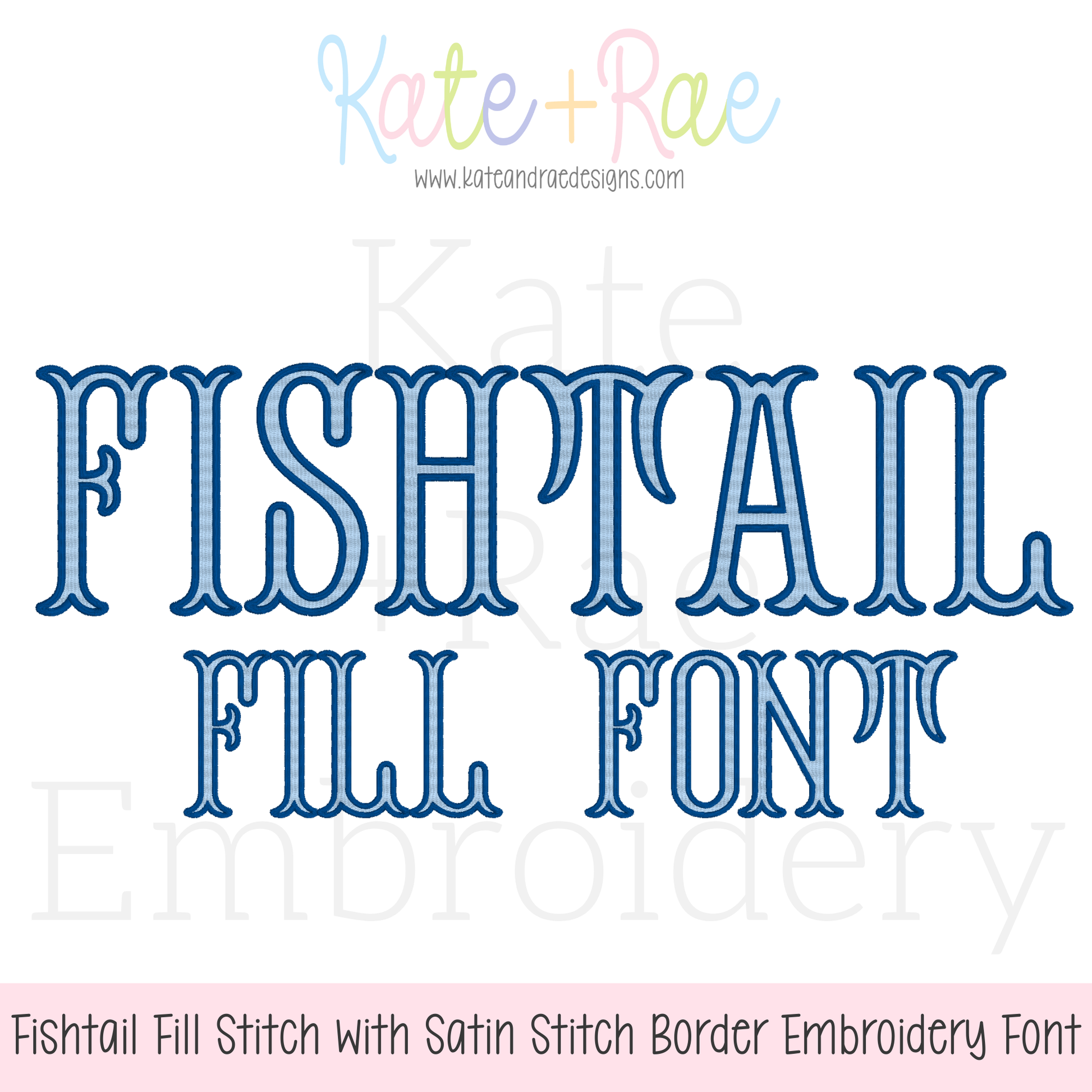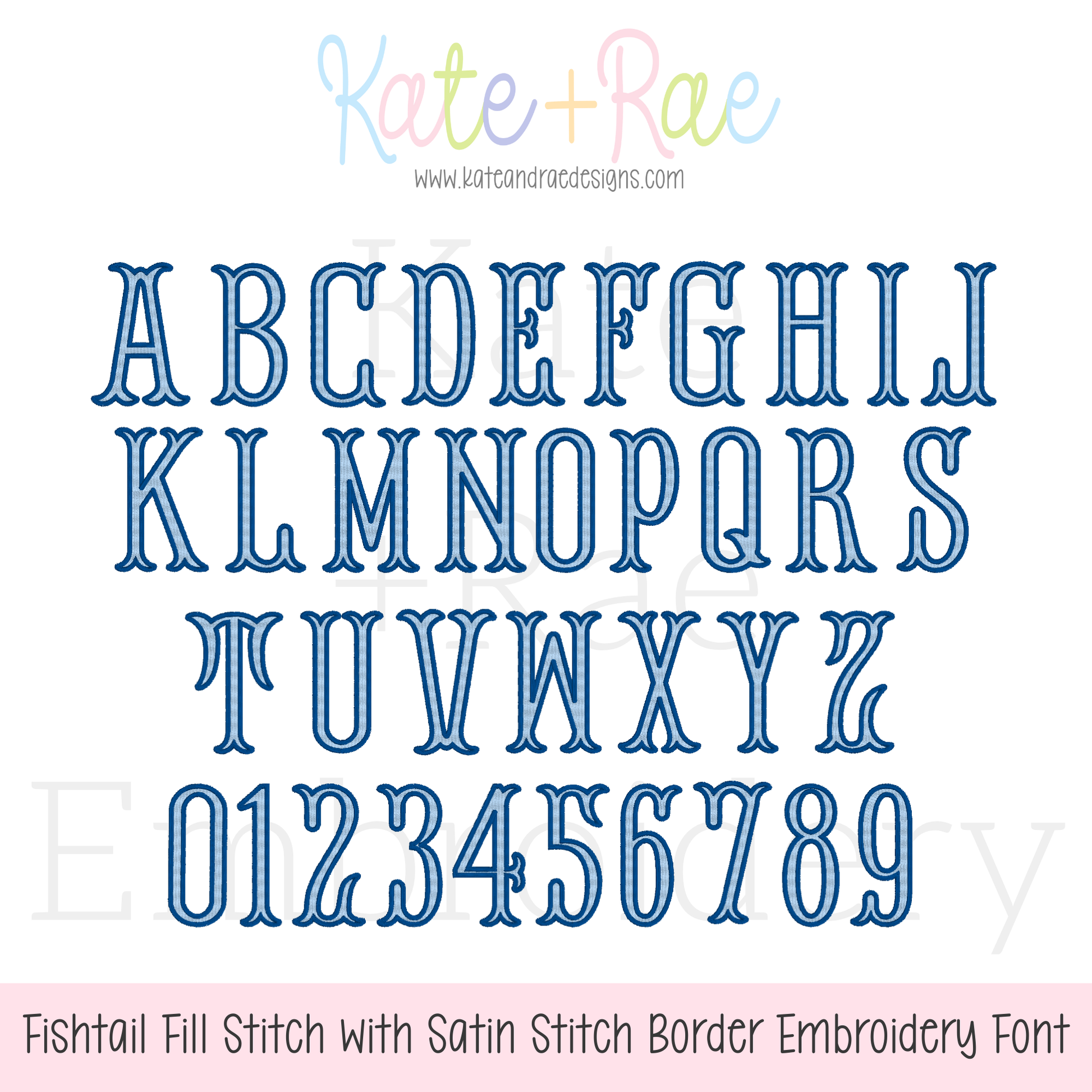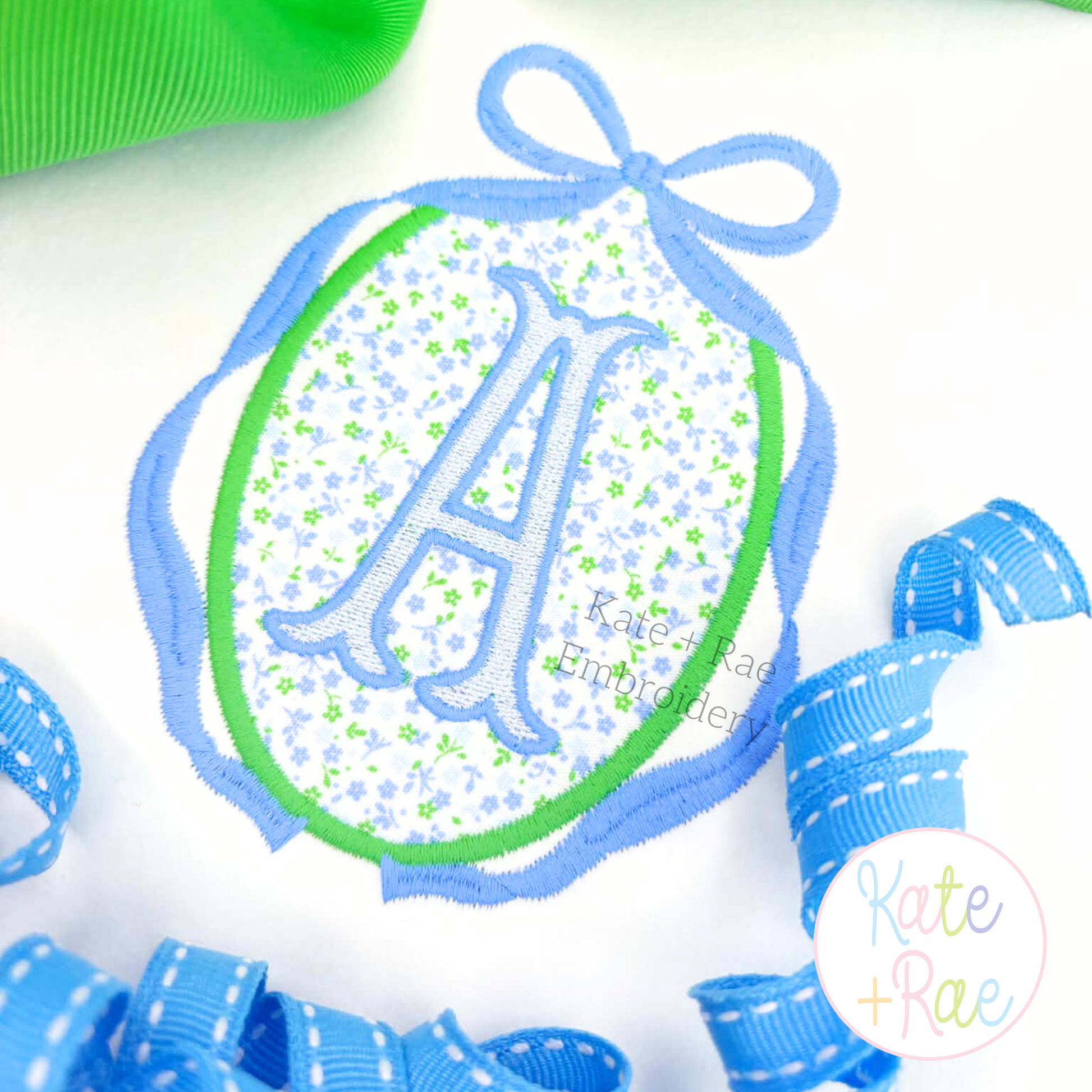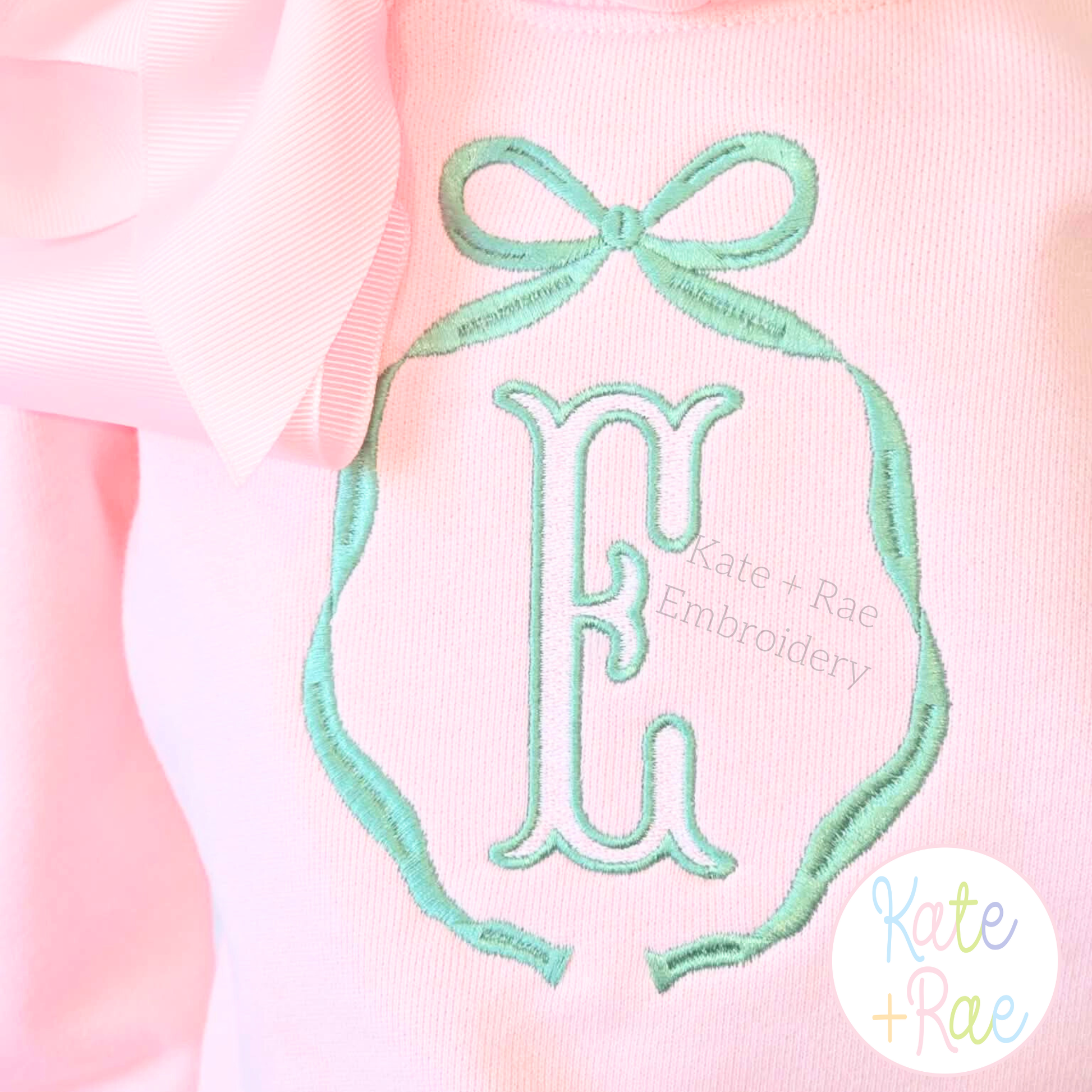
Fishtail Fill Stitch Font with Satin Border Machine Embroidery Font
Make a splash with Fishtail, a playful fill stitch font with a satin border! Personalize names, monograms, beach shirts, and summer outfits.